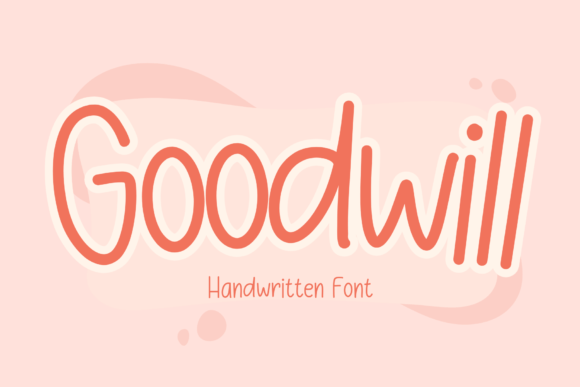
Introducing Goodwill Font, the ultimate choice for adding a touch of playfulness and authenticity to your designs. Created by the talented team at Brown Cupple Fonts, this fun handwritten font is here to elevate your projects to new heights.
With its unique charm and captivating style, Goodwill Font is the perfect companion for all your creative endeavors. Whether you're designing blog posts, crafting stunning logos, building a memorable brand, or creating eye-catching ads, this font will effortlessly bring your vision to life.
What sets Goodwill Font apart is its versatility. It seamlessly blends into various contexts, making it suitable for a wide range of applications. Have you ever wanted to design stunning invitations that leave a lasting impression? Look no further. Goodwill Font will add a touch of elegance and charm that will make your invites truly unforgettable.
Not only that, but Goodwill Font is also an excellent choice for greeting cards, planners, photo albums, and decorations. Imagine the joy and warmth it will bring to your loved ones when they receive a heartfelt message written in this beautiful font.
One of the most remarkable aspects of Goodwill Font is its ability to evoke emotions. It effortlessly captures the essence of joy, creativity, and authenticity. Every stroke and curve exudes a sense of whimsy and adds a unique personality to your designs.
But the benefits don't stop there. Goodwill Font is also a dream to work with. Its smooth and legible characters ensure that your text remains readable, even in small sizes. This makes it the ideal font for projects that require attention to detail, such as small text in brochures or product descriptions.